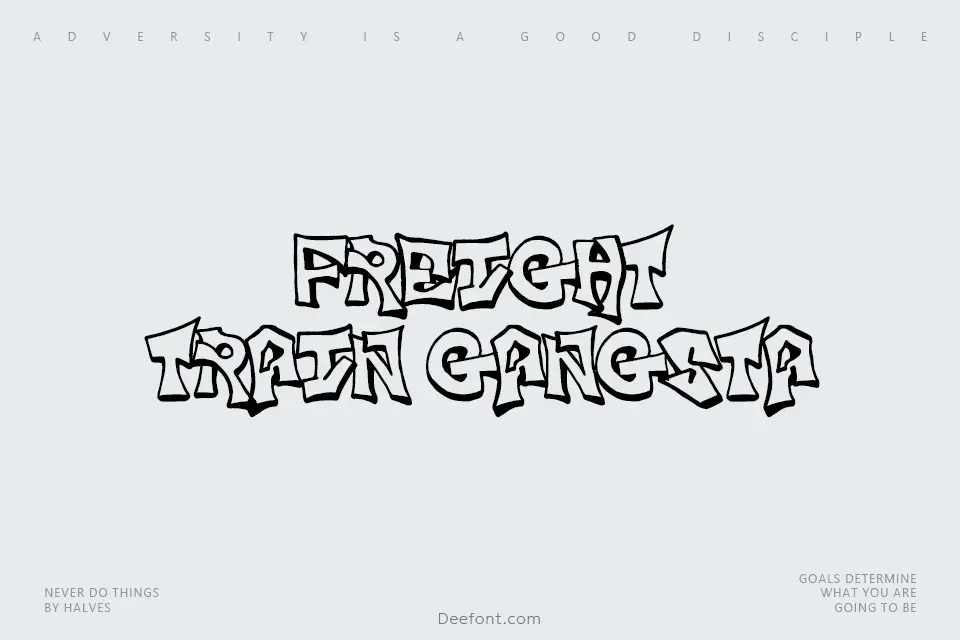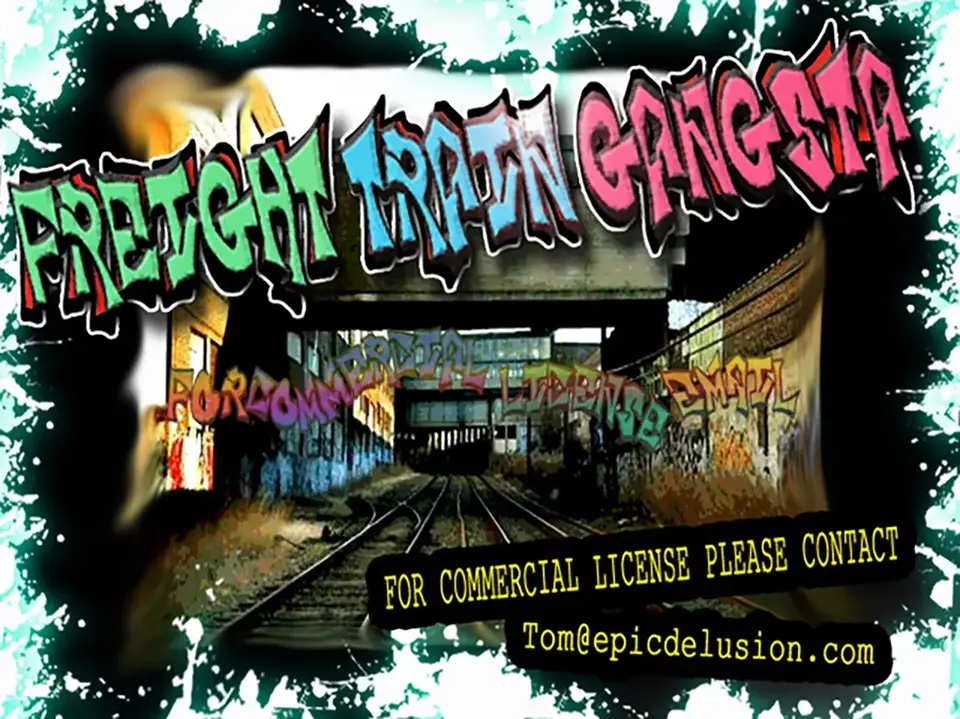
Freight Train Gangsta Font
Freight Train Gangsta is a bold, hand-drawn graffiti-style font that exudes urban energy and rebellion. Each letter was meticulously crafted with marker on sketch paper, then digitalized and refined using Adobe Photoshop, creating unique, angular strokes with a three-dimensional appearance. The font perfectly captures the essence of underground graffiti, hip-hop, skater, and punk cultures, making it ideal for street art-inspired designs, music album covers, urban-themed posters, edgy branding projects, and headlines that demand a strong, artistic presence.